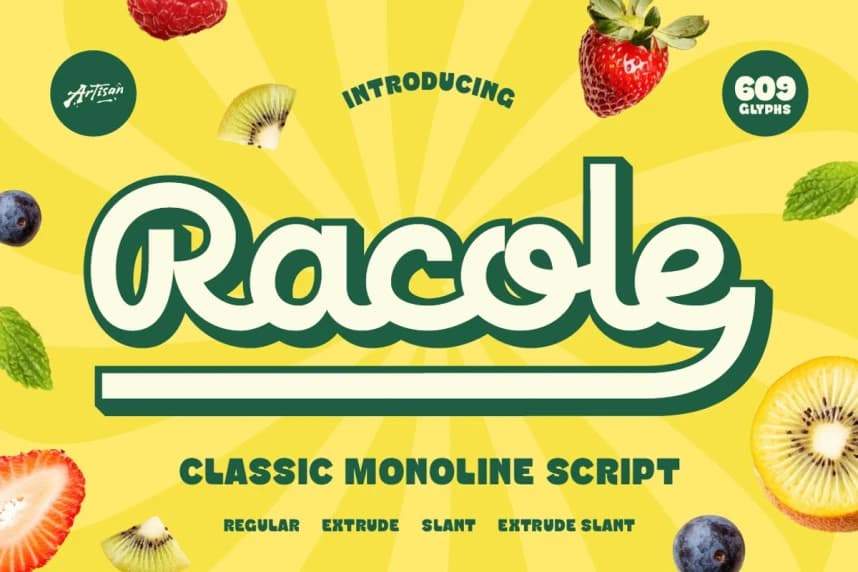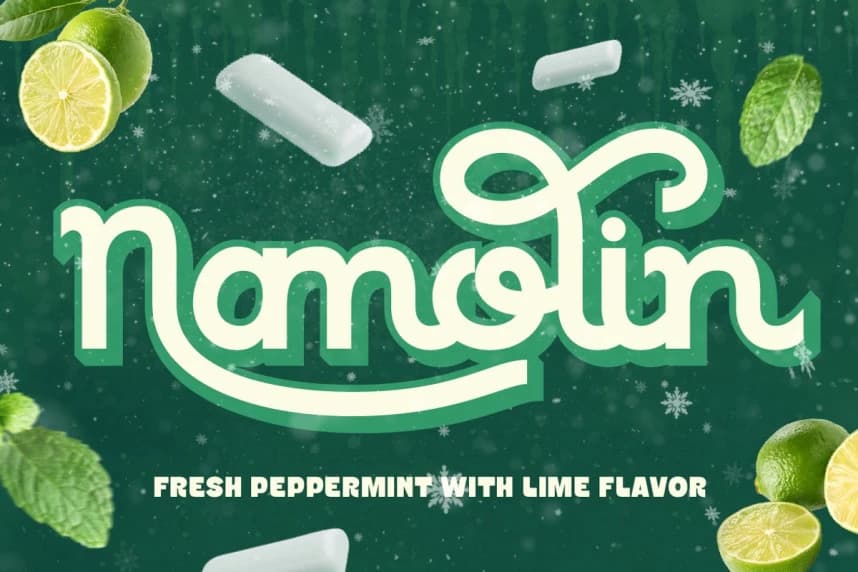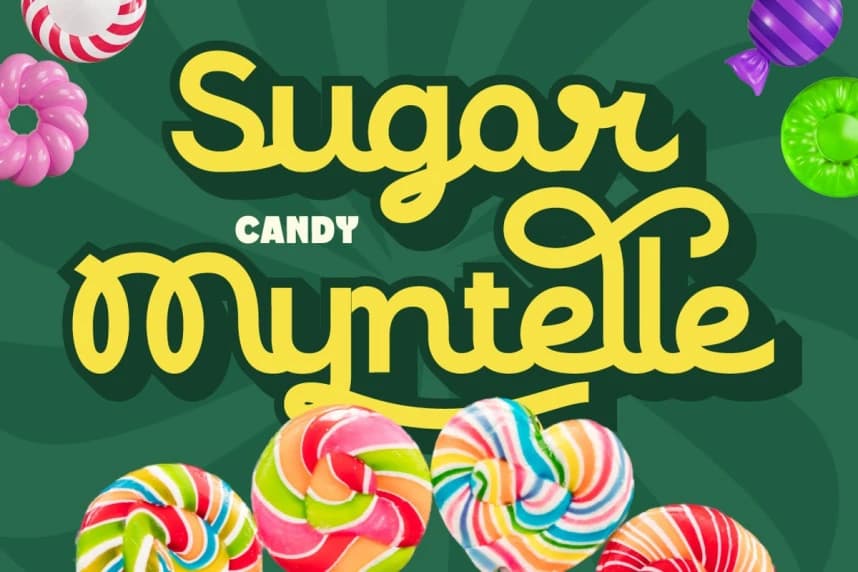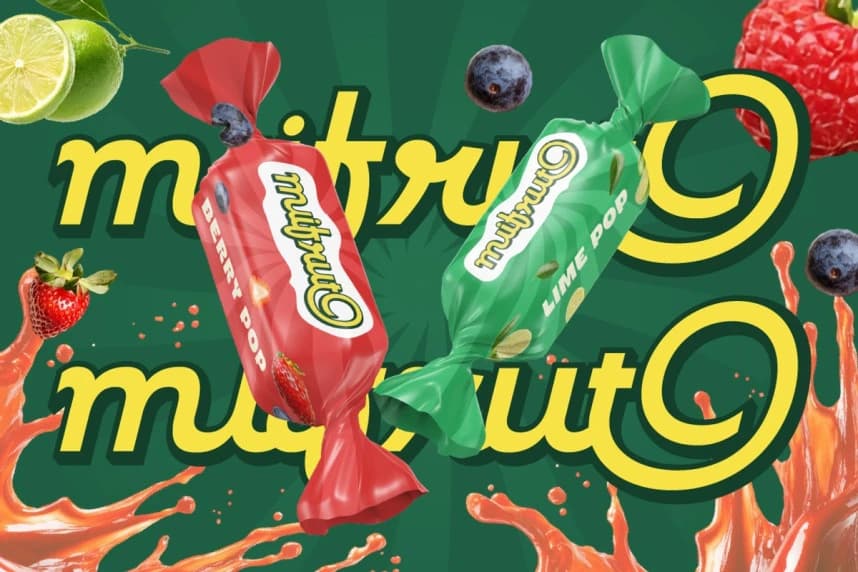
Racole Script Font
Racole Script Font! A bold, bubbly classic monoline script that feels like a warm summer day in font form. Inspired by retro candy shops and fresh fruit markets, Racole brings that irresistible feel-good energy to any design it touches.